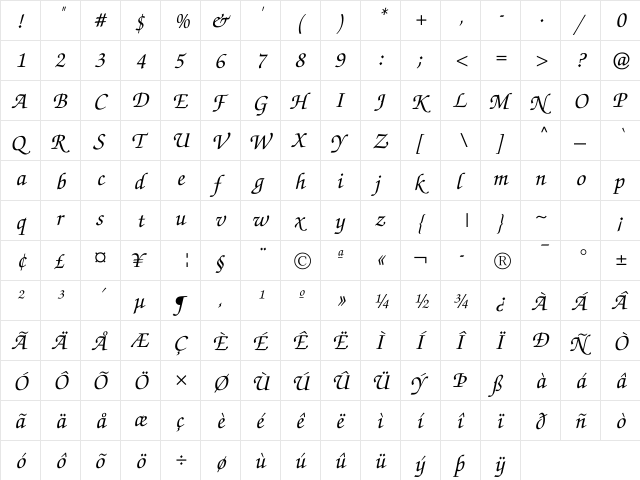
ZapfChanceryTT Italic Font Preview
ZapfChanceryTT Italic
Design Context for ZapfChanceryTT Typeface
ZapfChanceryTT takes a measured approach to typography — its balanced proportions and neutral character make it a reliable workhorse for both digital and print work. The slanted form adds forward momentum and visual energy.